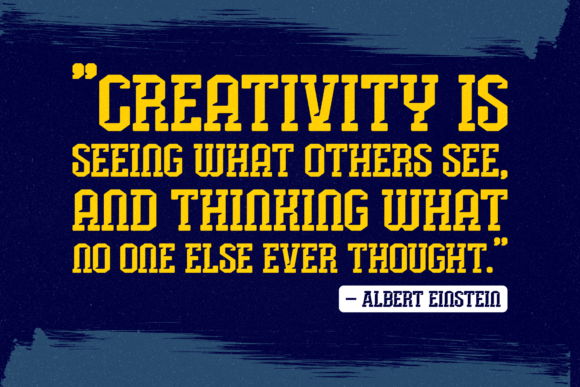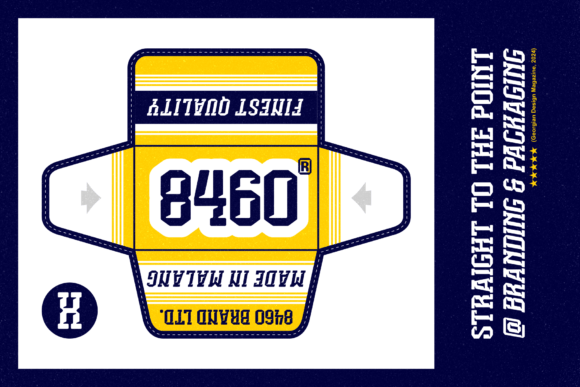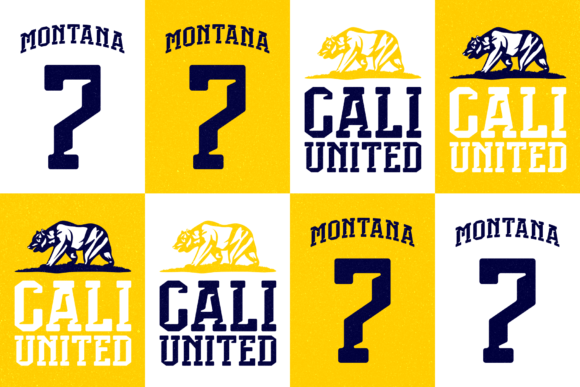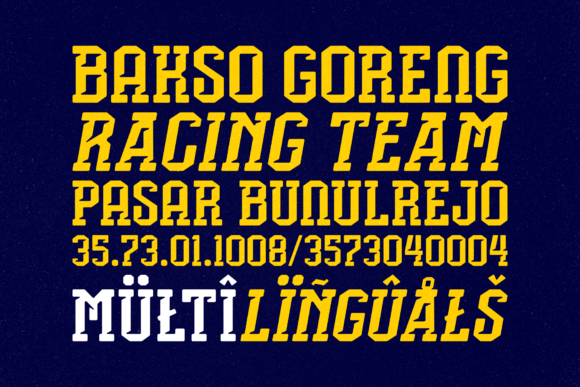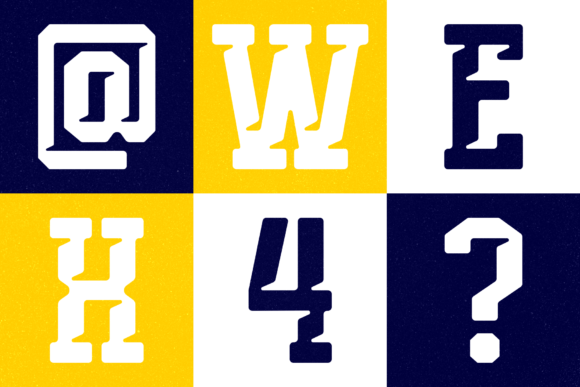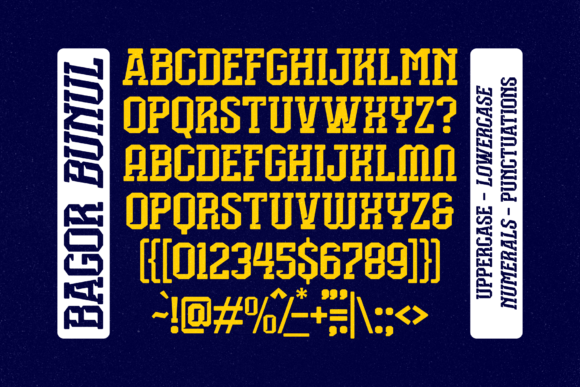
Introduction to Bagor Bunul Font
Introducing Bagor Bunul, a blocky font inspired by the classic letters used in sports jerseys and apparel.
We made it relevant to today’s trends by adding unique details This all-caps font allows you to mix upper and lower case for more letter variations.
Key Features of Bagor Bunul Font